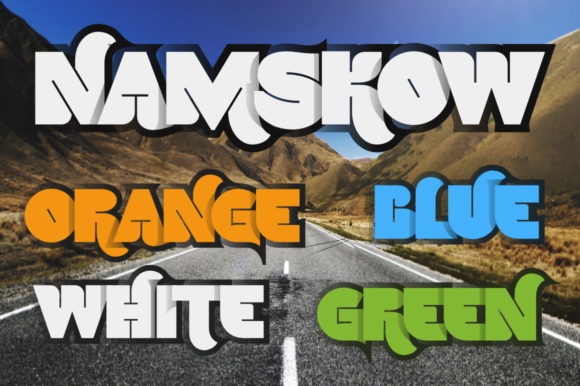
Make Your Work Stand Out with Namskow Font
There's a moment in every creative project where you need a typeface that doesn't just sit quietly in the background. You need something with a voice, a presence that grabs attention and holds it. That's precisely what Namskow delivers. It's a bold yet friendly color font, designed to inject personality and energy directly into your work. If you're tired of designs that blend into the noise, adding Namskow to your toolkit is a straightforward way to make your ideas pop.
Understanding Namskow's Unique Visual Appeal
At its core, Namskow is a premium display font, but calling it just that doesn't capture its full story. Its defining feature is its nature as an OpenType-SVG color font. This isn't your standard single-color typeface. Each letterform is crafted with built-in color, texture, and dimension. Think of it less as a traditional font and more as a complete graphic element. The visual style walks a fascinating line: it's bold and confident, yet the shapes and curves maintain a friendly, approachable character. This balance is key. It allows Namskow to command attention without feeling aggressive or cold, making it versatile for projects that need to be both strong and inviting.
The overall appeal lies in its immediate impact. In a world of flat design, Namskow offers instant depth. The color and texture are embedded, meaning you get a complex, visually rich result with a simple text edit. This is modern typography at its most accessible, providing designers and creators with a powerful asset that saves time while elevating quality. Whether you see it as a creative font with a bold personality or a strategic design asset, its goal is clear: to make your message impossible to ignore.
Where Namskow Truly Shines: Practical Applications
Knowing a font is interesting is one thing; knowing where to use it is what matters. Namskow's strength is in high-impact, attention-driven scenarios. Its nature as a color font means it excels where you can control the background and context to let its unique qualities breathe.
- Branding & Logo Design: For a brand that wants to project confidence and creativity, Namskow is a fantastic choice for a logo or wordmark. It can instantly define a brand identity as modern, energetic, and distinct. It works particularly well for brands in the creative, tech, food, or lifestyle spaces that want to stand apart from the minimalist crowd.
- Marketing & Social Media Graphics: This is where Namskow becomes a secret weapon. In a fast-scrolling feed, a static image can easily be missed. Using Namskow for key headlines, quotes, or call-to-action text on social media graphics stops the scroll. It's perfect for Instagram stories, Facebook ad headlines, Pinterest pins, and YouTube thumbnails where grabbing attention in milliseconds is critical.
- Packaging & Product Design: On a shelf or a webpage, packaging needs to tell a story quickly. Namskow can highlight a product name or a key benefit with the visual weight of a custom illustration. For artisanal products, craft beverages, or boutique goods, it adds a layer of bespoke artistry.
- Editorial & Web Design: Use it strategically in editorial design for chapter openers, pull quotes, or feature article headers. In web design, it can make a hero section headline unforgettable. The key is placement—it's for moments of emphasis, not for long paragraphs of body copy.
- Personal & Commercial Projects: For entrepreneurs creating their own marketing materials, crafters designing custom decals (in compatible software), or bloggers making featured images, Namskow provides a professional, polished look without needing a design degree. Its friendly boldness is also great for greeting cards, event invitations, and motivational posters.
Integrating Namskow into Your Design Workflow
Adopting a new font, especially one as distinctive as a color font, requires a bit of thoughtful consideration. Here’s how to approach it practically to get the best results.
Evaluating Fit and Readability
First, assess your project's needs. Is the goal to be loud and proud, or subtle and refined? Namskow is firmly in the former category. It's a display typeface, meaning it's optimized for large sizes like headlines, not for small, dense text. Its readability at small sizes is limited, so always pair it with a highly legible sans serif font or a clean serif font for body copy. This contrast creates a strong visual hierarchy, guiding the reader's eye exactly where you want it to go.
Mastering Font Pairings
The best font pairing for Namskow is one that provides balance. Since Namskow is bold, textured, and colorful, its partner should be simple, clean, and neutral. A classic sans serif like Helvetica, Open Sans, or Lato lets Namskow's personality shine without competition. For a different feel, a straightforward serif font like Times New Roman or Georgia can add a touch of tradition to anchor Namskow's modern energy. Avoid pairing it with another highly decorative script font or handwritten font, as this will create visual chaos and undermine professionalism.
This is crucial. Namskow is an OpenType-SVG color font. Its compatibility is specific. It works seamlessly in PhotoShop, Illustrator, Silhouette, and Inkscape. However, the OTF and TTF files are not compatible with Cricut machines. Always check the product details and the vendor's Ultimate Font Guide for technical specifications before purchasing for a specific workflow. Furthermore, understand the licensing. If you're using Namskow for a client project, a commercial product, or merchandise for sale, ensure you have the correct commercial license. This protects both you and the font creator.
Ultimately, Namskow is more than just a creative font; it's a strategic tool. It’s for the moments when you need your design to do more than just communicate—it needs to captivate. By understanding its personality, choosing the right contexts, and pairing it wisely, you can leverage this bold, friendly typeface to create work that doesn't just get seen, but gets remembered. It’s a valuable addition to any designer's or creator's library of design assets, ready to transform good ideas into standout visual statements.